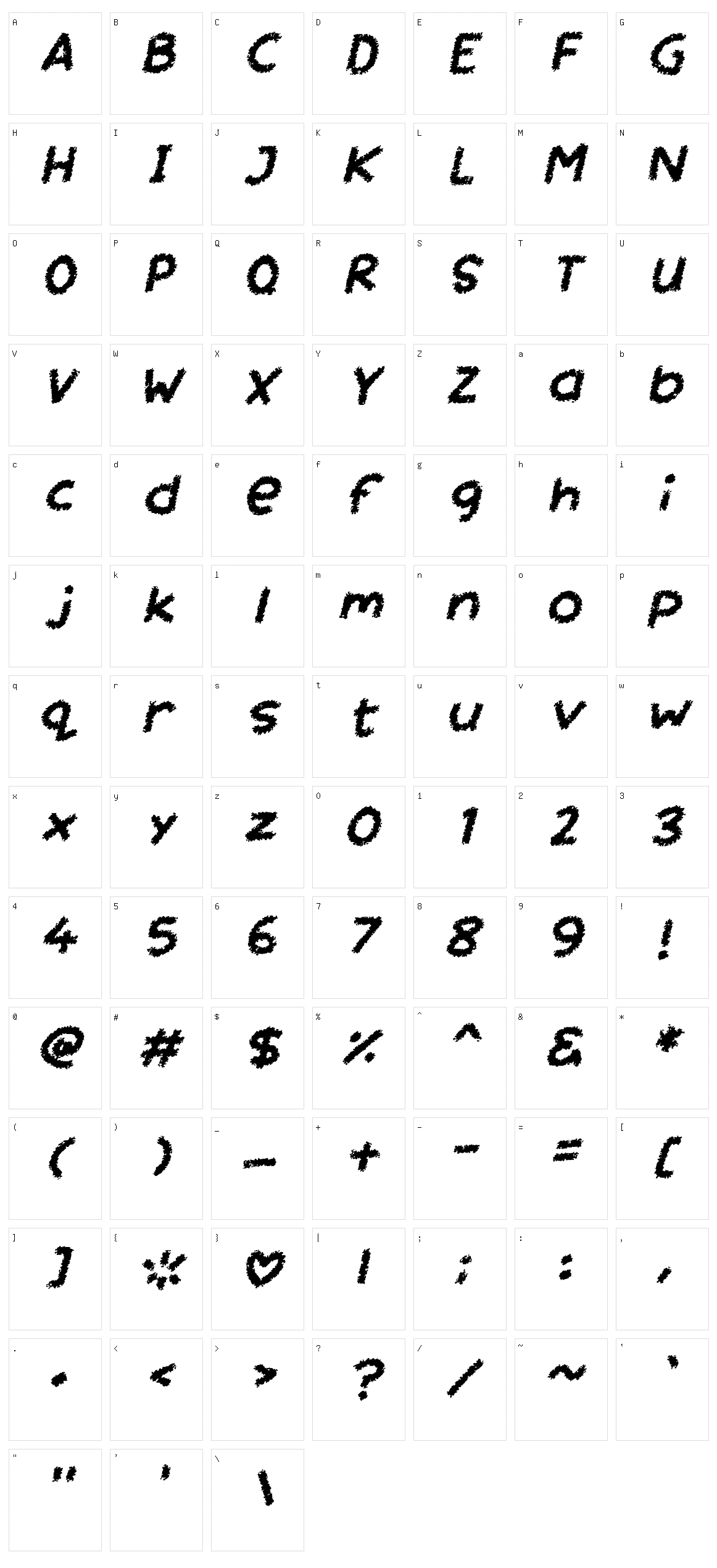
The free font Miss Chalkboard is carefully designed by Hawtpixel, showcasing a thoughtful balance of creativity and usability and falls under the Trash font style. When you download the ZIP file, it contains only 384.85 KB of font files, making it lightweight and quick to download. Please review the license details below to understand permitted usage and distribution rights. If license information is not available, we recommend using this font for personal projects only or contacting the author directly for commercial usage permissions.